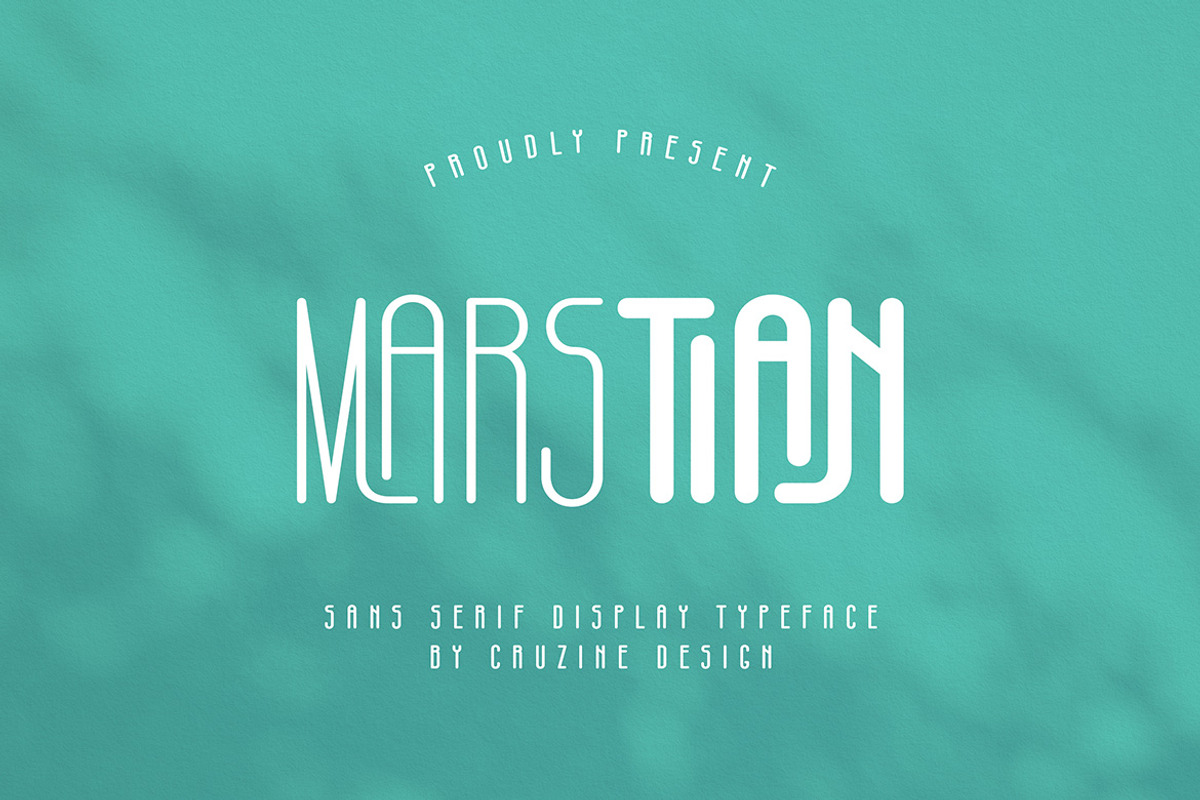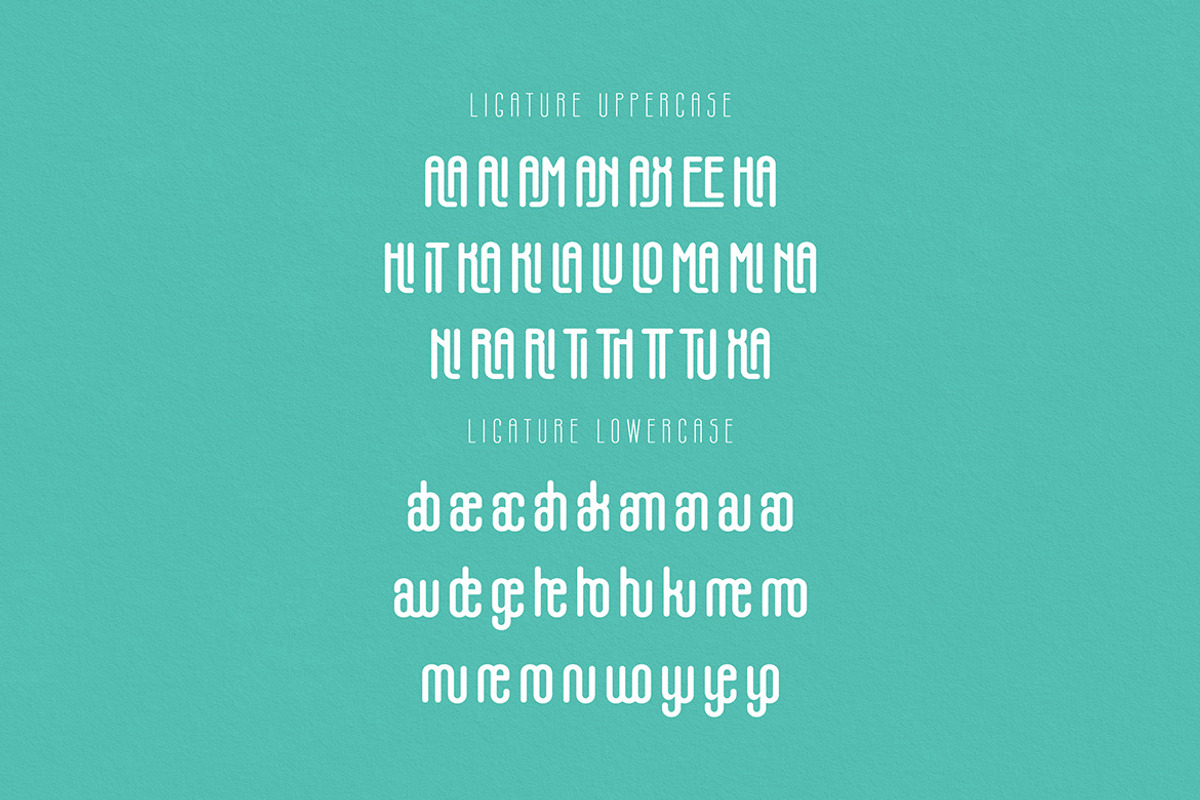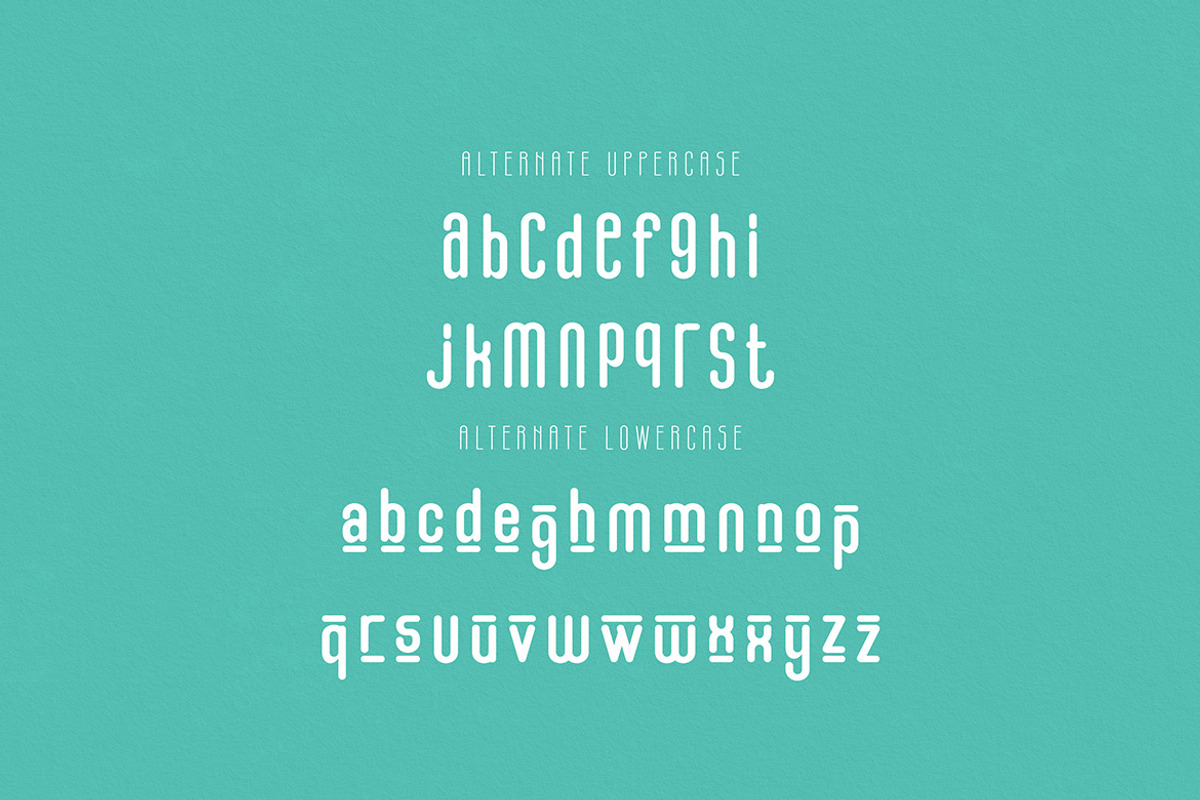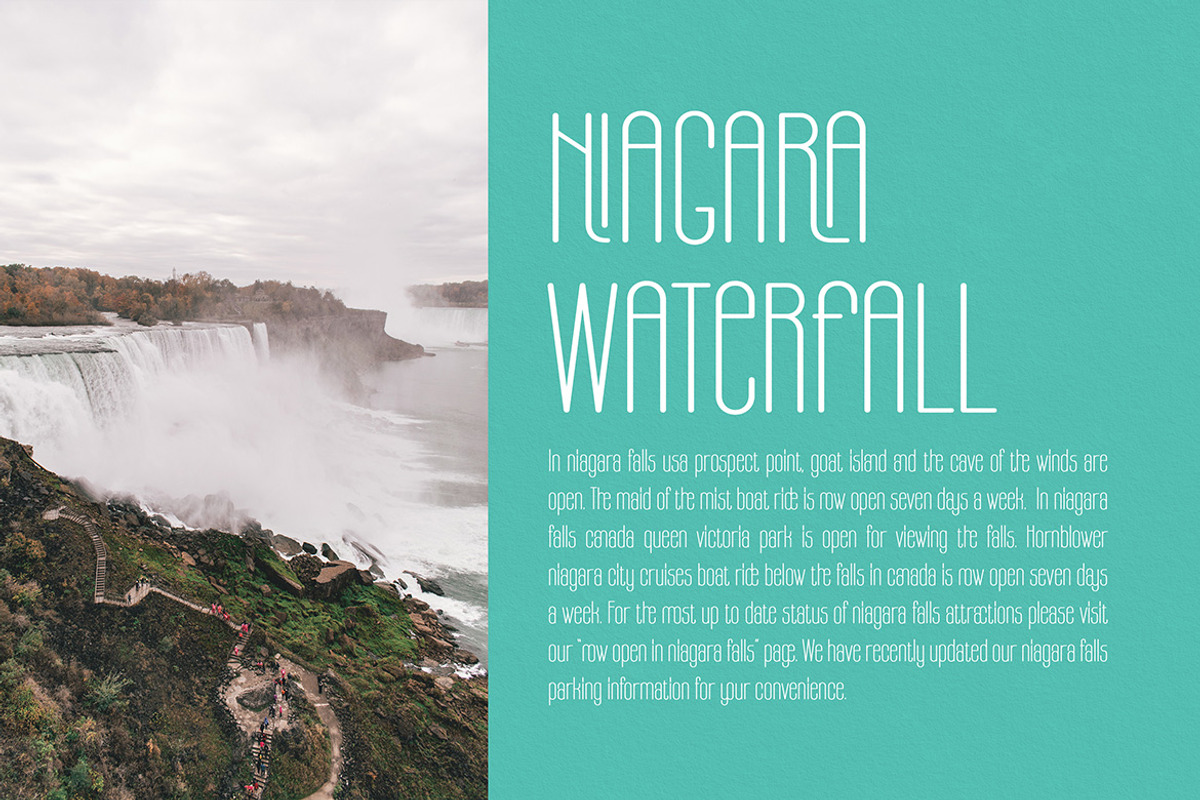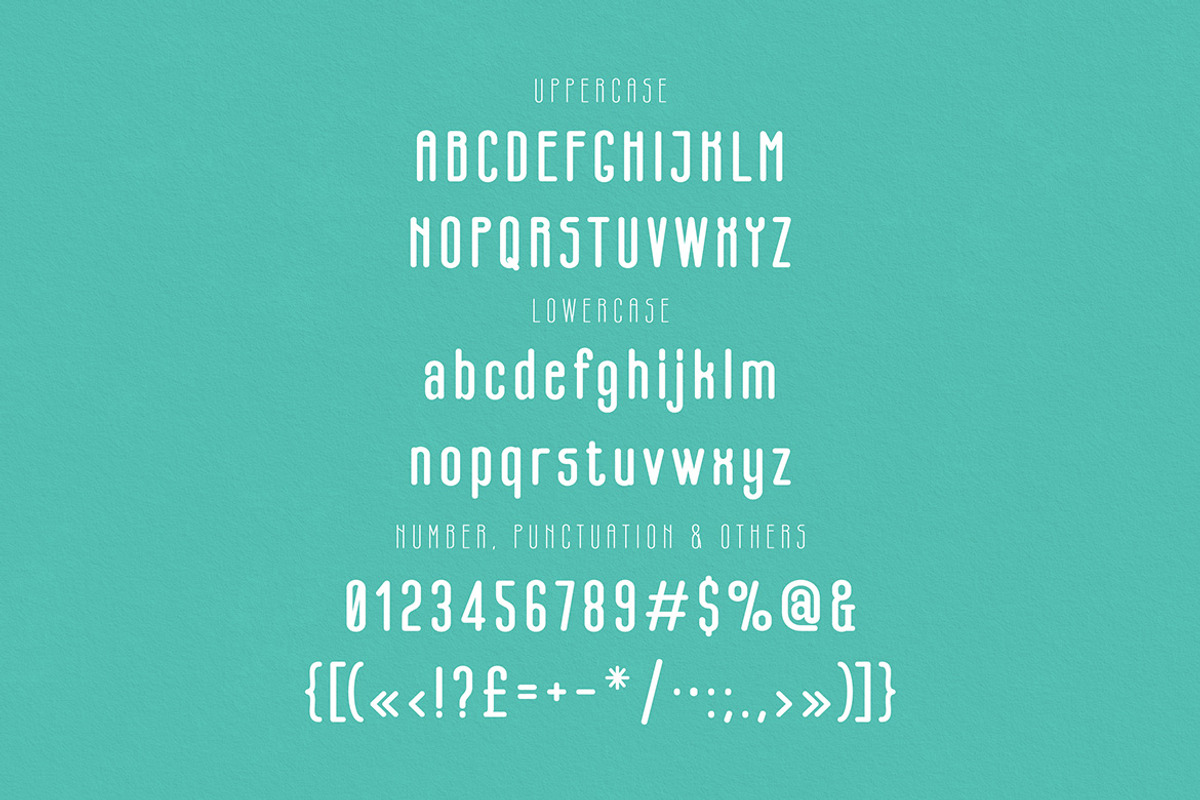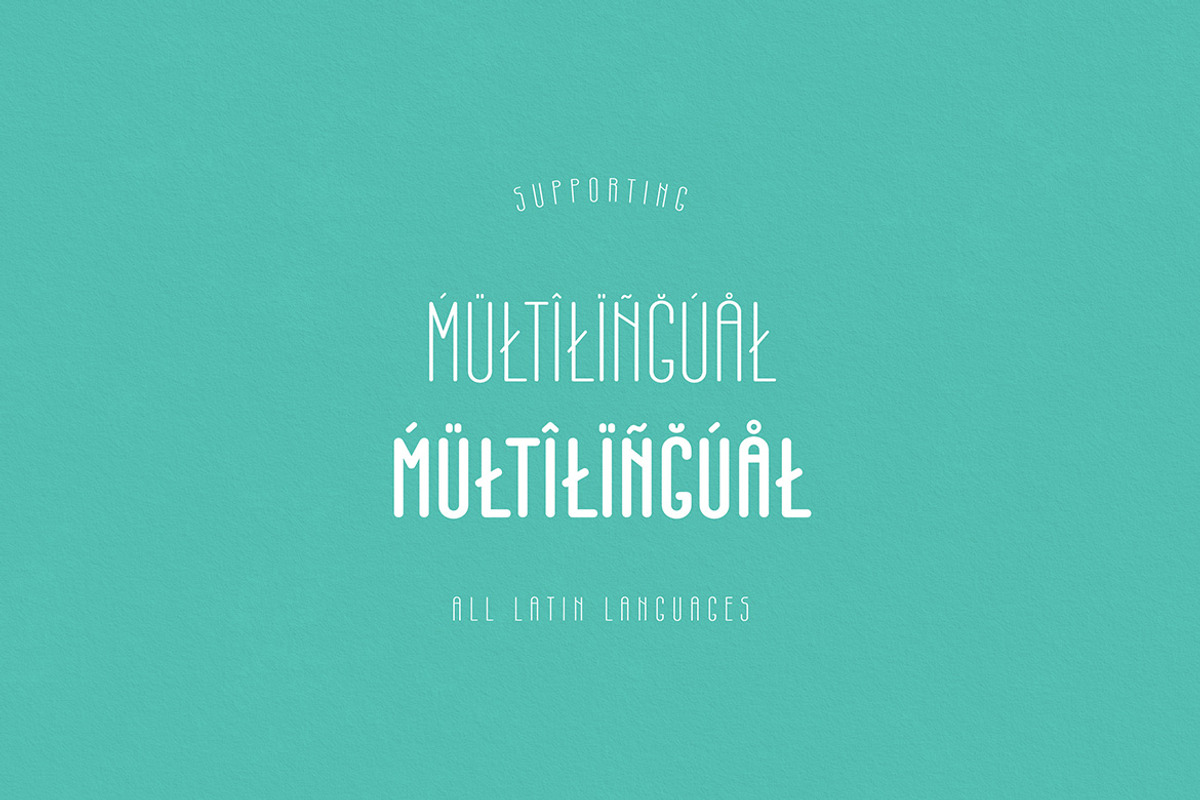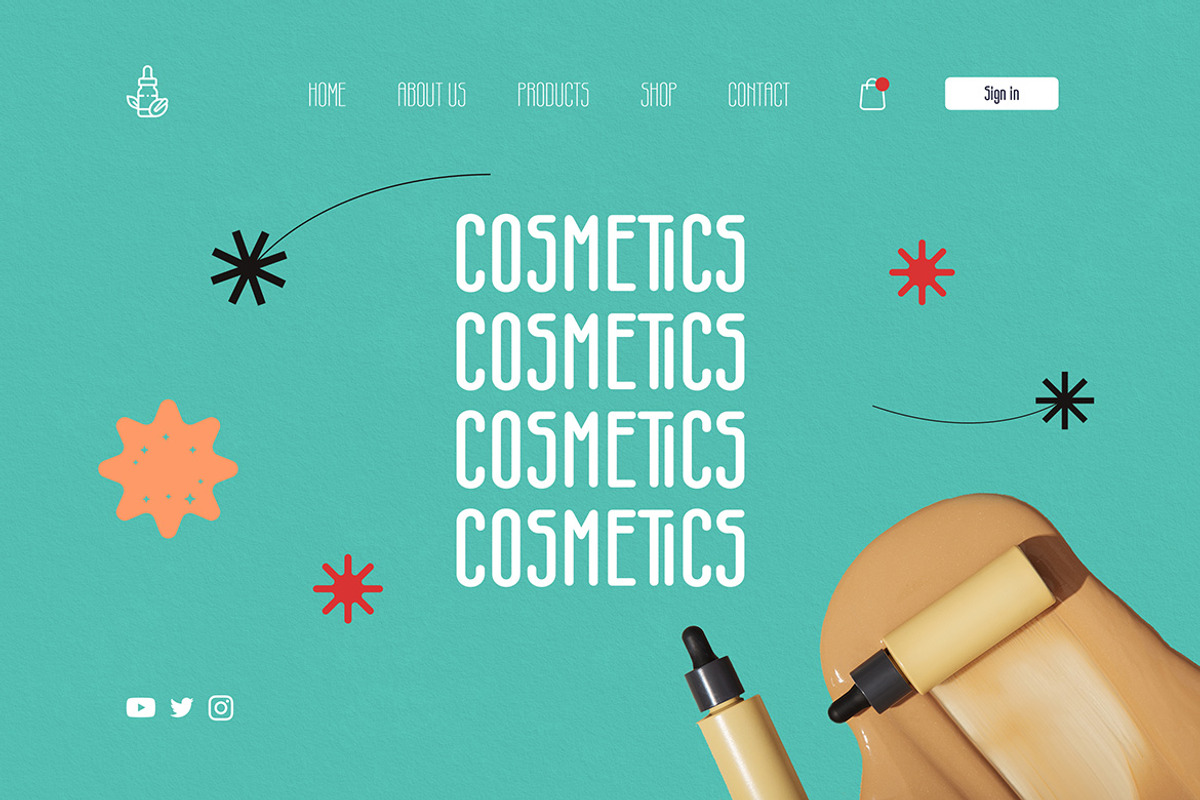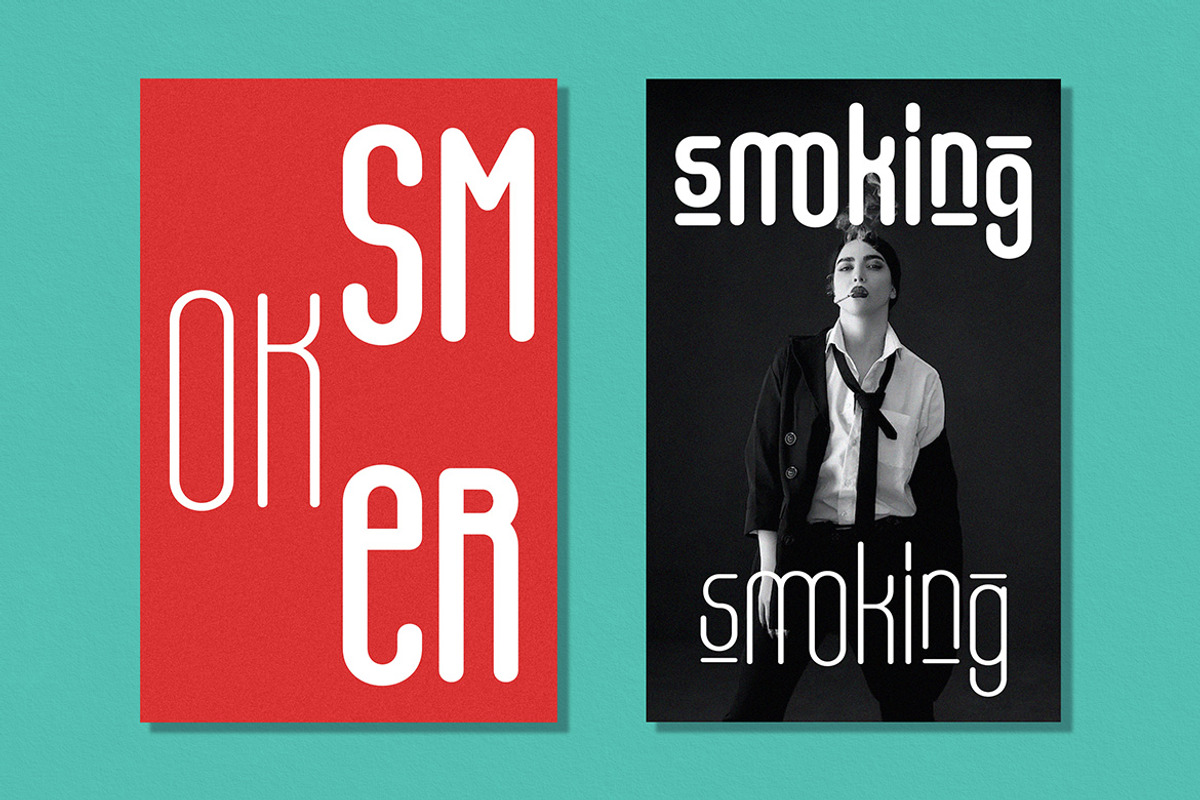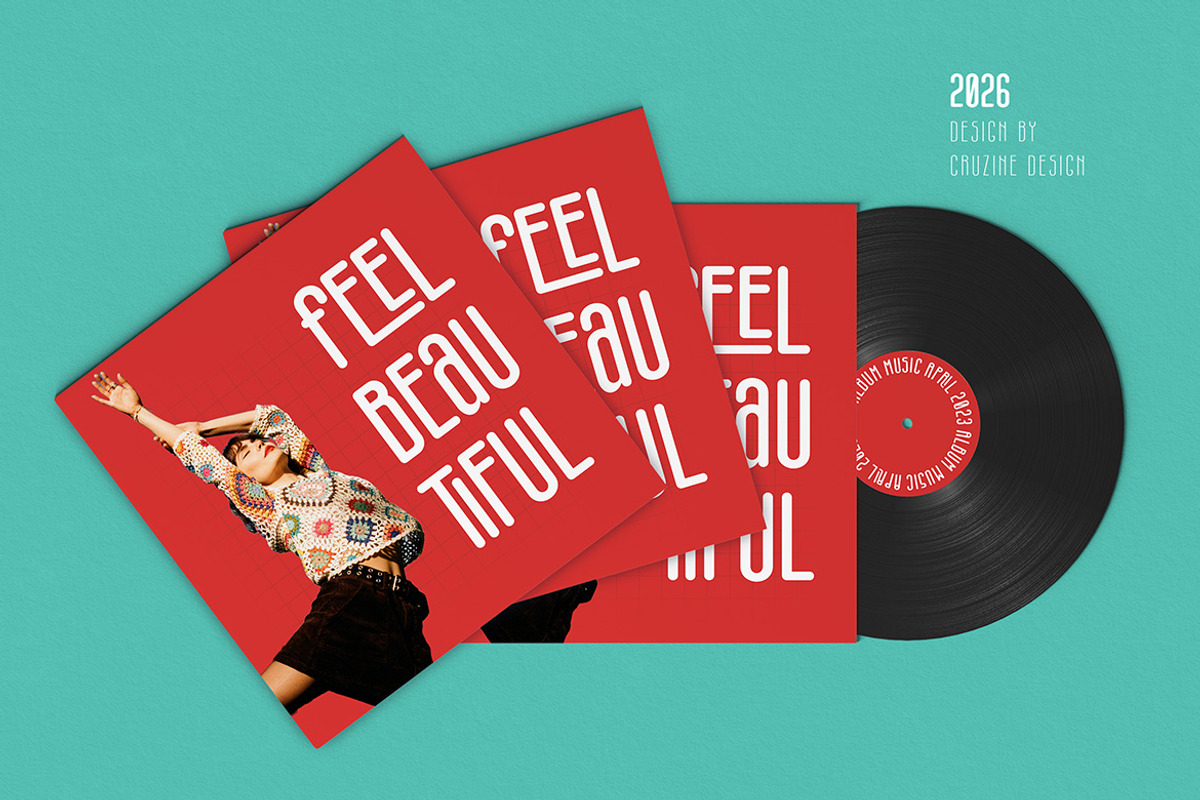
Marstian Monoline Condensed Sans
Modern, simple, clean, condensed & monoline sans serif font for your new fancy projects. Stylish, creative and trendy style on Marstian Monoline font will be great for any modern branding project. Lot of alternates and ligatures will help you to create unique and original logo design or website header! Enjoy :)
- 2 font versions - regular & bold
- Alternate characters
- Lot of ligatures
- Great for modern branding projects!